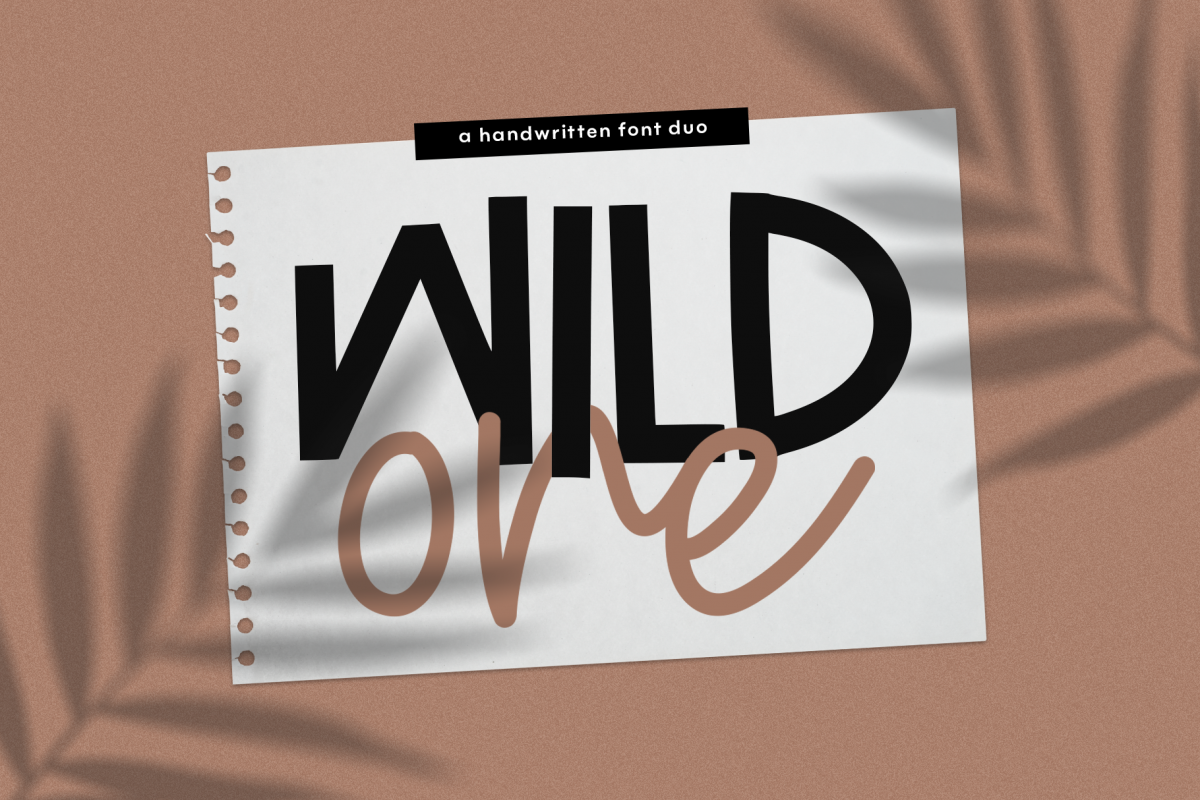
Wild One- Handwritten Script & Print Font Duo
Wild One is a handwritten font pair.
• Wild One Print - a solid & bold print font. [TTF & OTF]
• Wild One Script -  a fun script font. [TTF & OTF]
This duo is perfect for quotes, headings, blogs, logos, brandings, invitations and more!